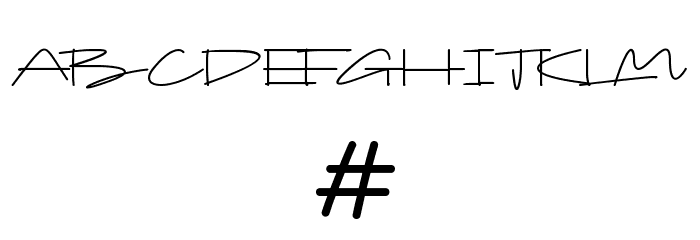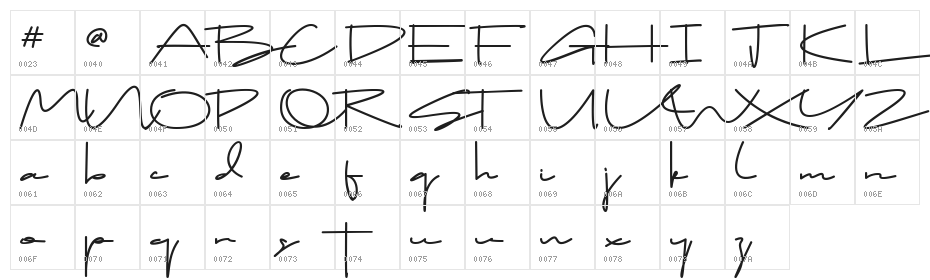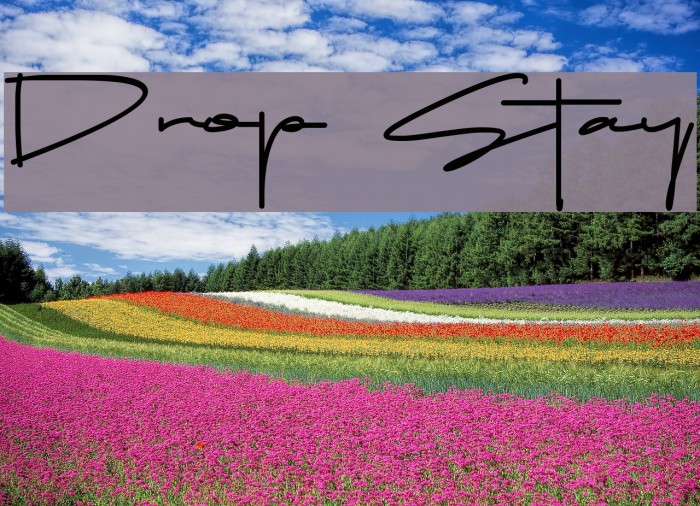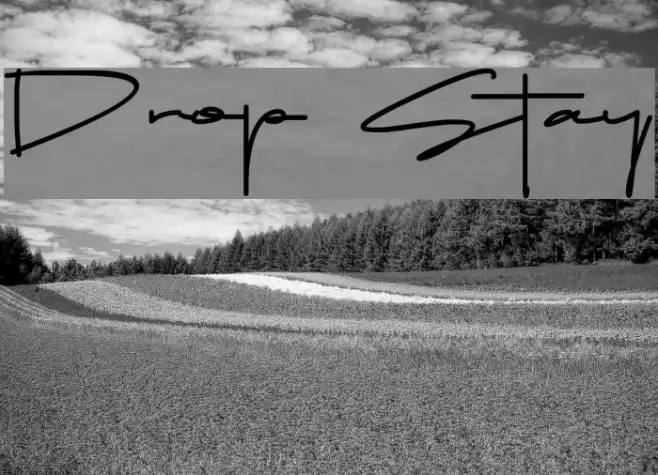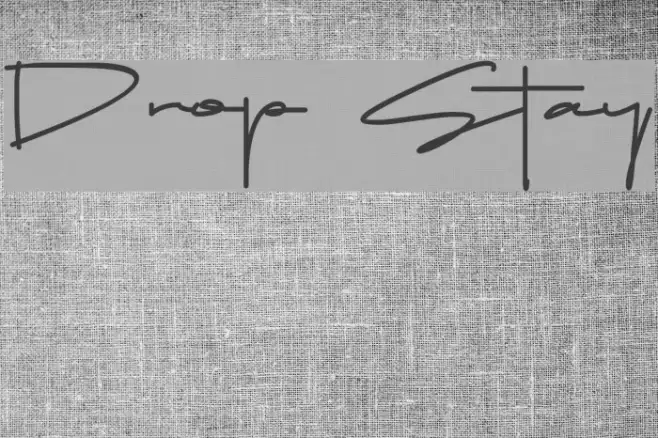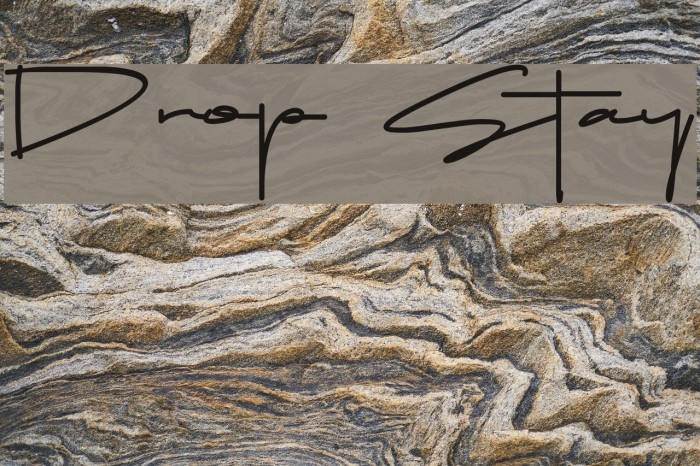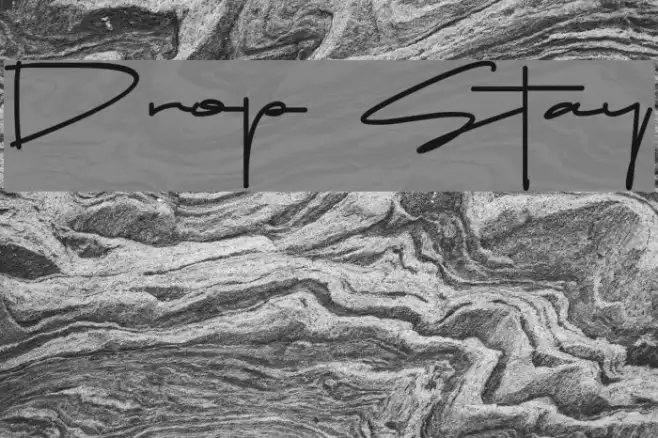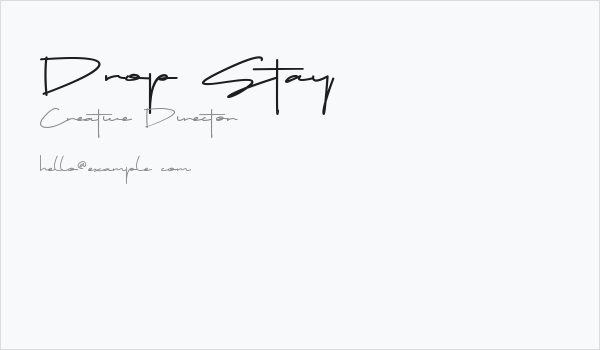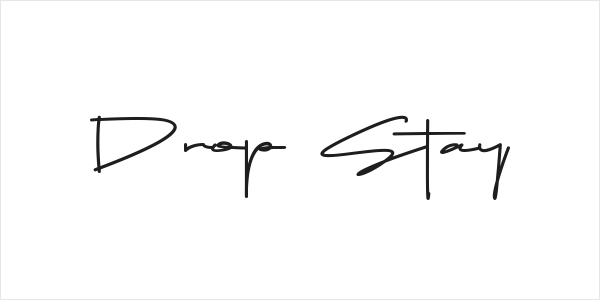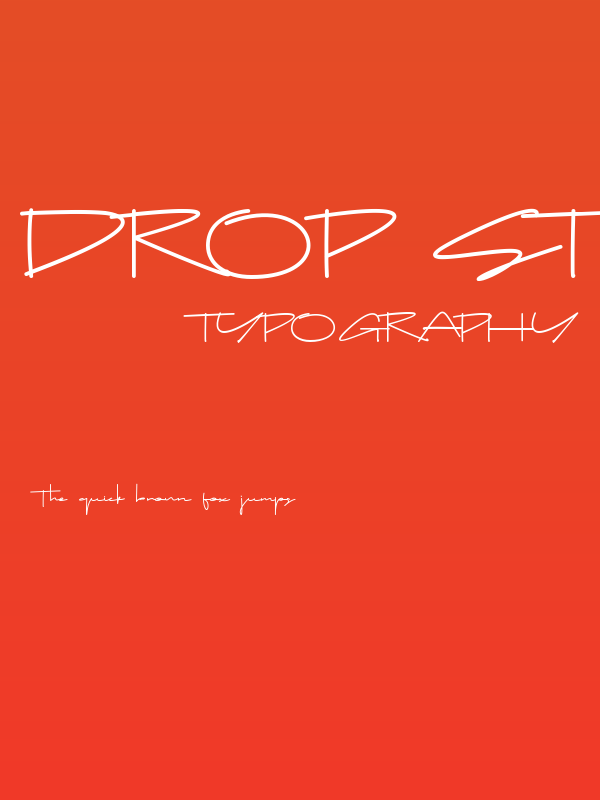
Drop Stay Font
Drop Stay Description
This font features a unique blend of cursive and modern styles, characterized by its flowing, interconnected letters that create a sense of movement and elegance. The uppercase letters maintain a consistent height and are slightly slanted, giving them a dynamic appearance. The lowercase letters are more expressive, with varying heights and loops that add a playful touch. The strokes are thin, contributing to a light and airy feel, while the overall design remains legible and stylish. This font is ideal for creative projects that require a personal and artistic touch.
| Use Case | Logos, Invitations, Social Media |
| Proposed Projects | Ideal for wedding invitations, personal branding, artistic logos, and creative social media graphics. |